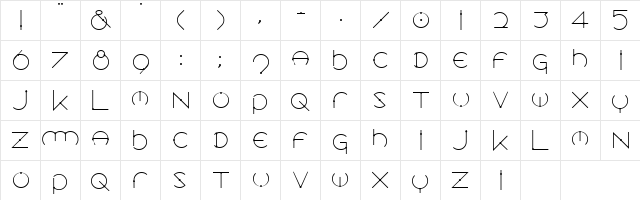
Locus Text
Design Context for Locus Typeface
Locus offers clean, dependable letterforms without strong stylistic allegiance, making it a practical choice for designers who need flexibility.